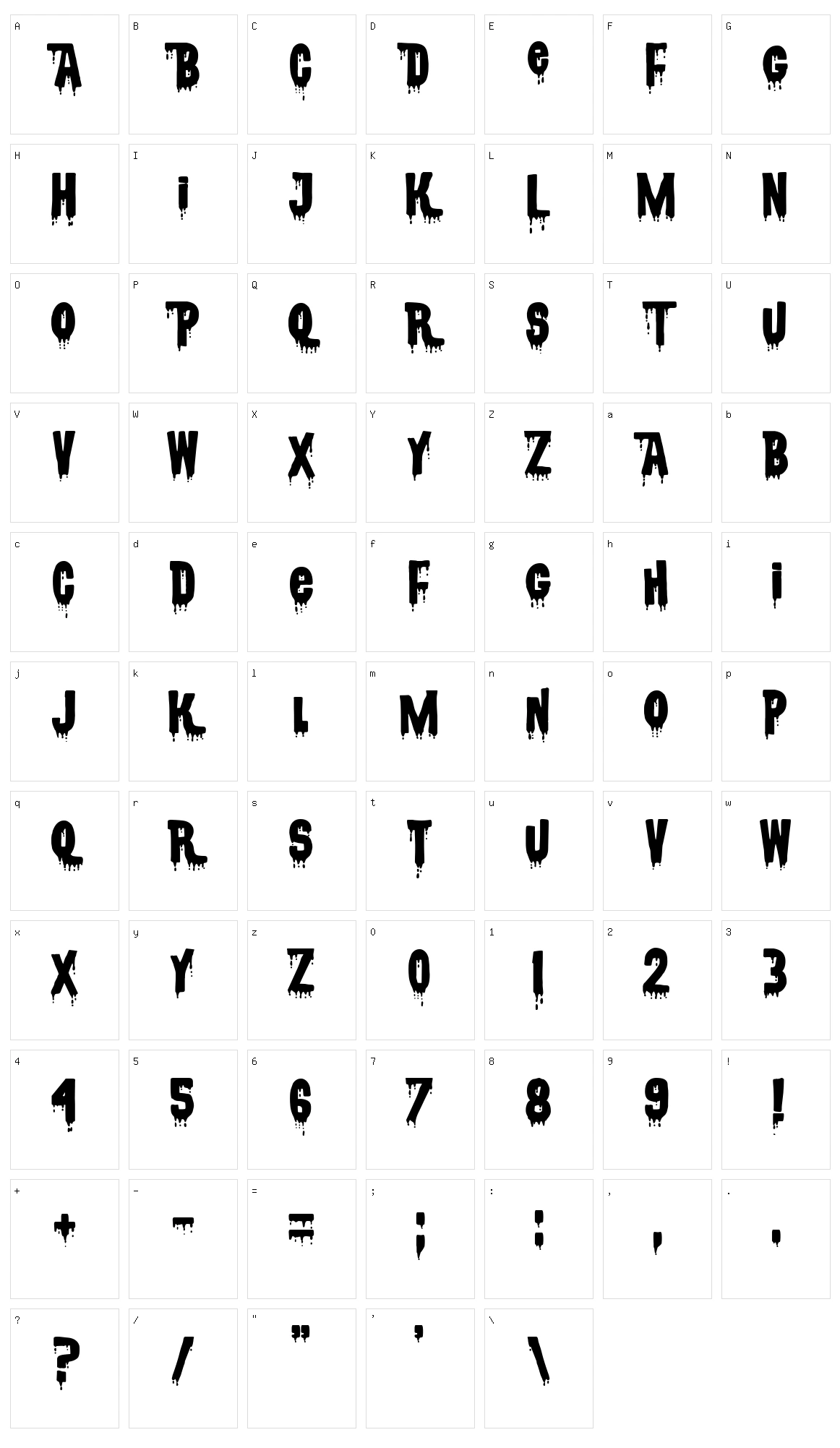
The free font Children should not play with dead things is carefully designed by Norfok Incredible Font Design, showcasing a thoughtful balance of creativity and usability and falls under the Horror font style. When you download the ZIP file, it contains only 25.82 KB of font files, making it lightweight and quick to download. Please review the license details below to understand permitted usage and distribution rights. If license information is not available, we recommend using this font for personal projects only or contacting the author directly for commercial usage permissions.